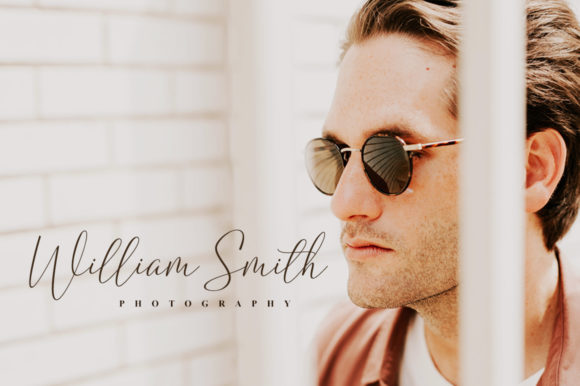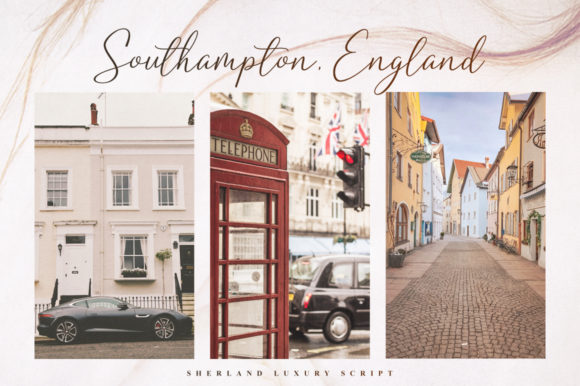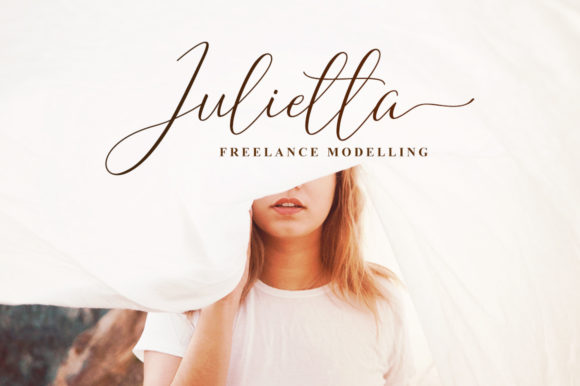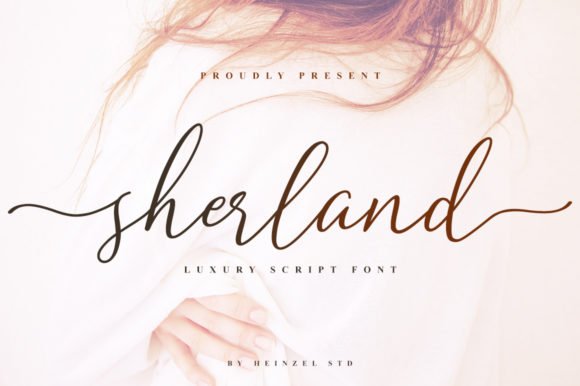
Introduction to Sherland Font
Sherland simplifies elegance into one truly outstanding script font.
Fall in love with its authentic feel and use it to create gorgeous wedding invitations, beautiful stationary art, eye-catching social media posts, and cute greeting cards .
Key Features of Sherland Font